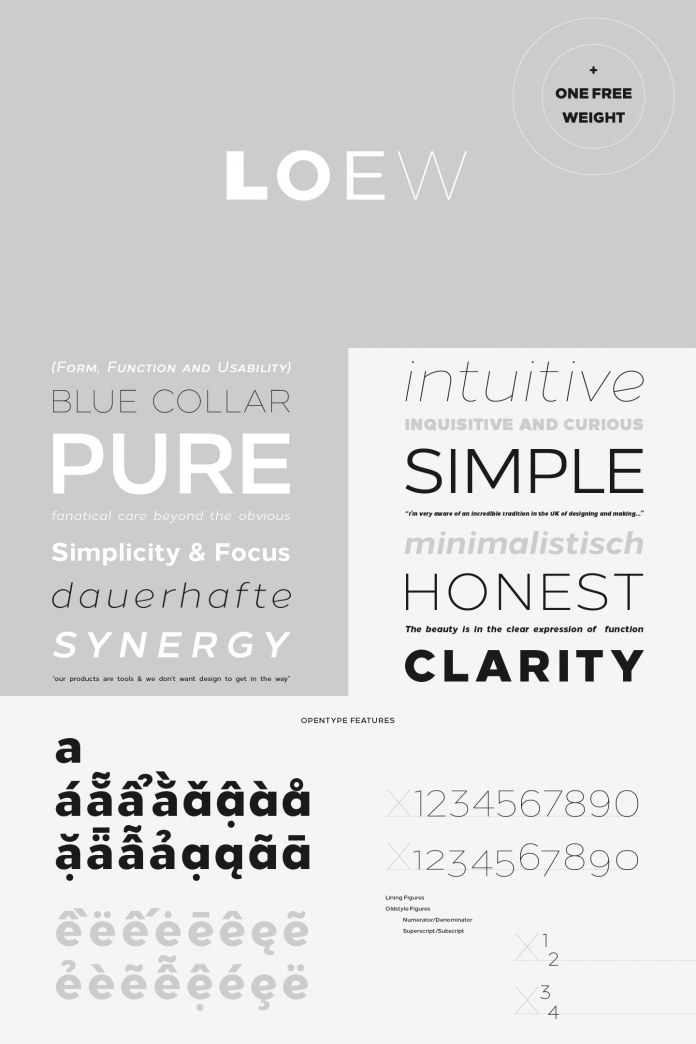
The Loew typeface, a geometric sans serif font family from The Northern Block Ltd.
British type designer Jonathan Hill of foundry The Northern Block Ltd created the Loew typeface, a modern geometric sans serif font in 2014. The type family takes its inspiration from methods and design techniques of early industrial designers. Its typeface is characterized by mechanical shapes, which are adjusted with care to give this font a functional and well-balanced appearance. This combination between subtle human touches and technical details offers great legibility at any size. The Loew typeface is a geometric sans serif font family that can be used for both large headlines as well as long and small texts. This versatile type family comes with 6 weights ranging from Thin to Black plus Italics and includes one free weight (Loew Heavy).
The diverse typeface is available as both web font as well as a desktop font and can be used for a variety of applications. Loew is equipped with more than 800 characters including some alternative lowercase letters, 7 variations of numerals, true small caps with accents, manually edited kerning, and additional Opentype features.